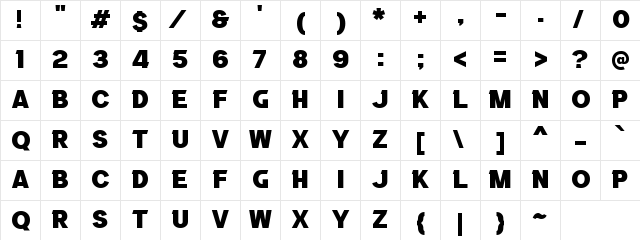
a Black Lives BlackLives Free Font
a Black Lives BlackLives
Style: BlackLives
Design Context for a Black Lives
a Black Lives is a composed and adaptable typeface that performs quietly and consistently across a wide range of design contexts.